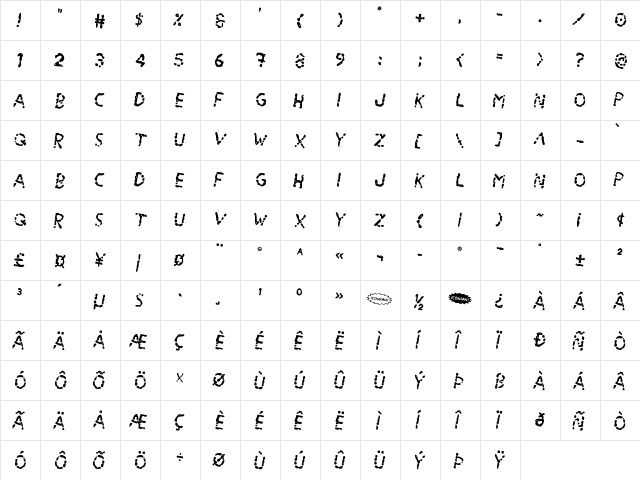
Blood Drenched Rotated 2 Regular
Design Context for Blood Drenched Rotated 2 Typeface
Blood Drenched Rotated 2 leans into the macabre with letterforms designed to disturb and intrigue in equal measure.
Ideal for Halloween projects, horror film titles, haunted house signage, and dark editorial design.
Font Pairing: Pair with a clean neutral sans-serif for body copy to let Blood Drenched Rotated 2's character lead without overwhelming the composition.
Pro Tip: Blood Drenched Rotated 2 works best as a headline or focal element. Pair it against plain, neutral body text to amplify the contrast.